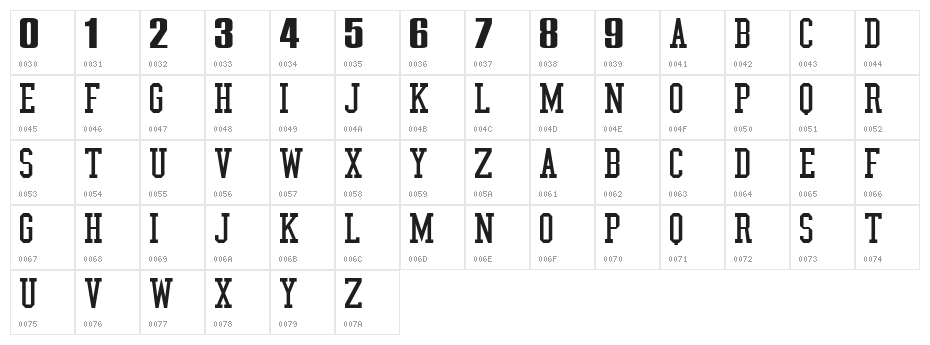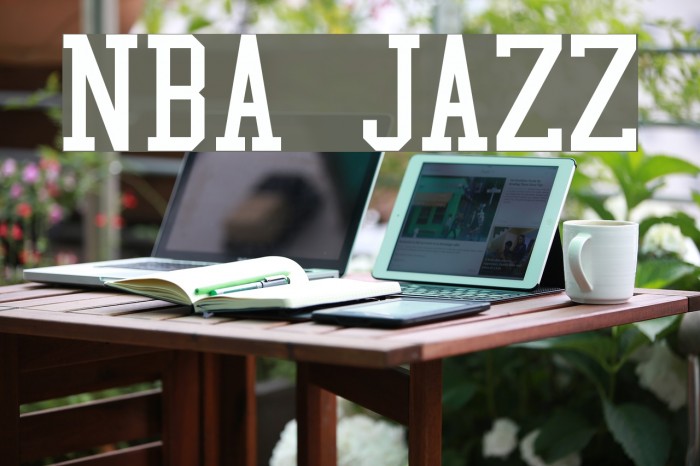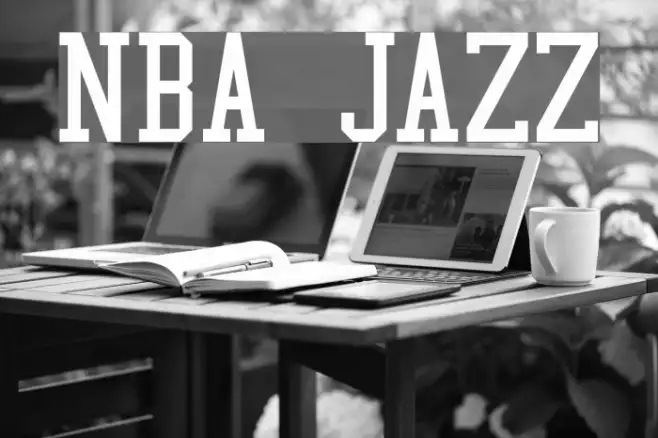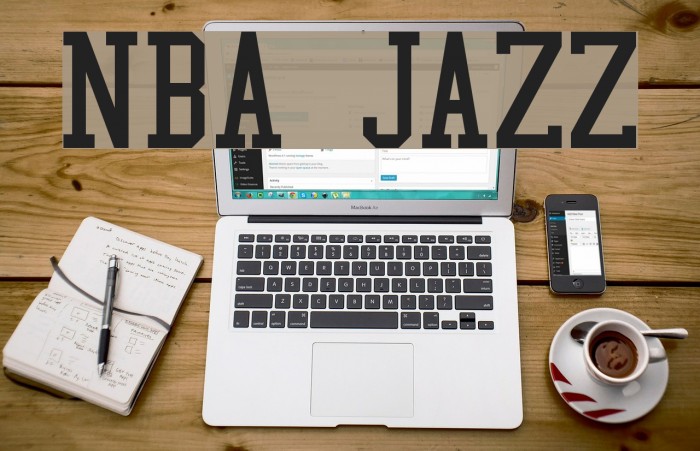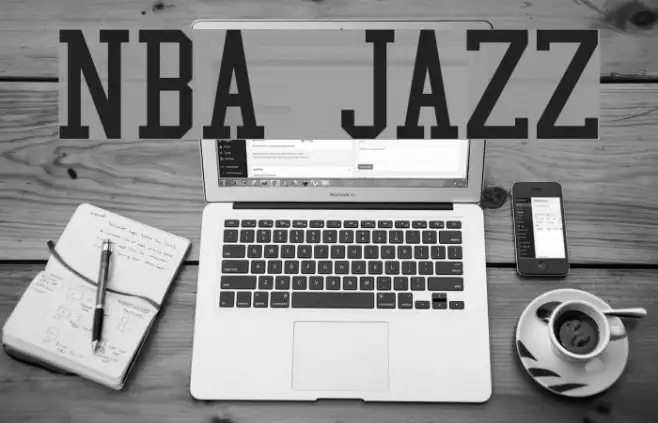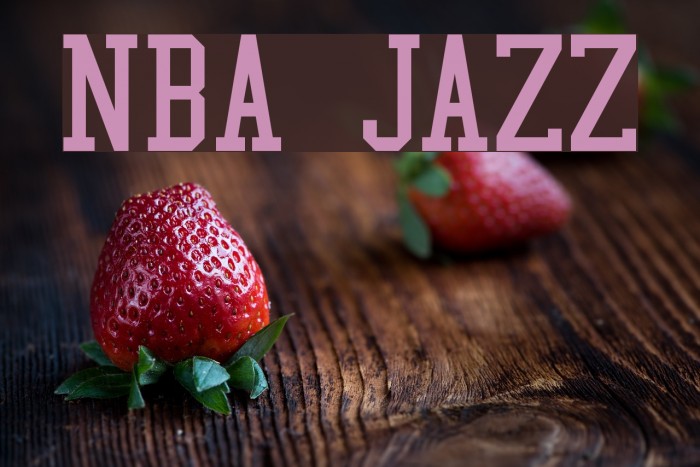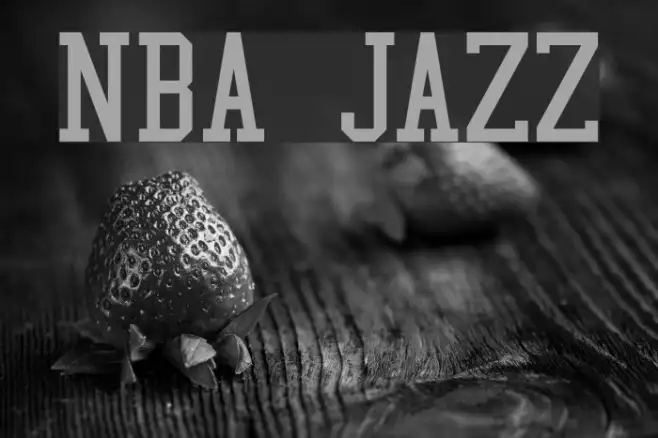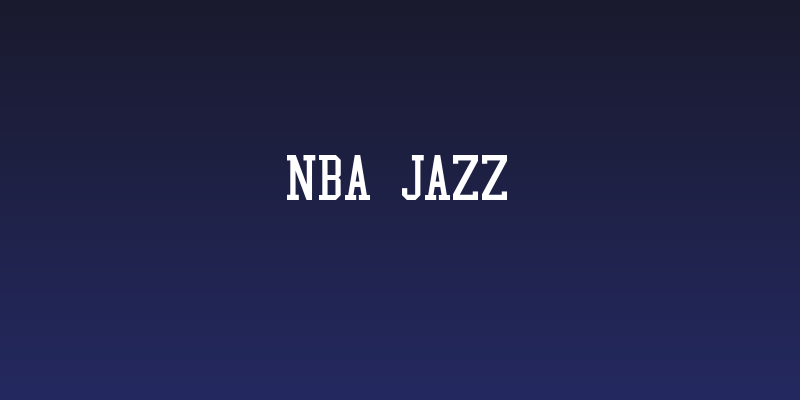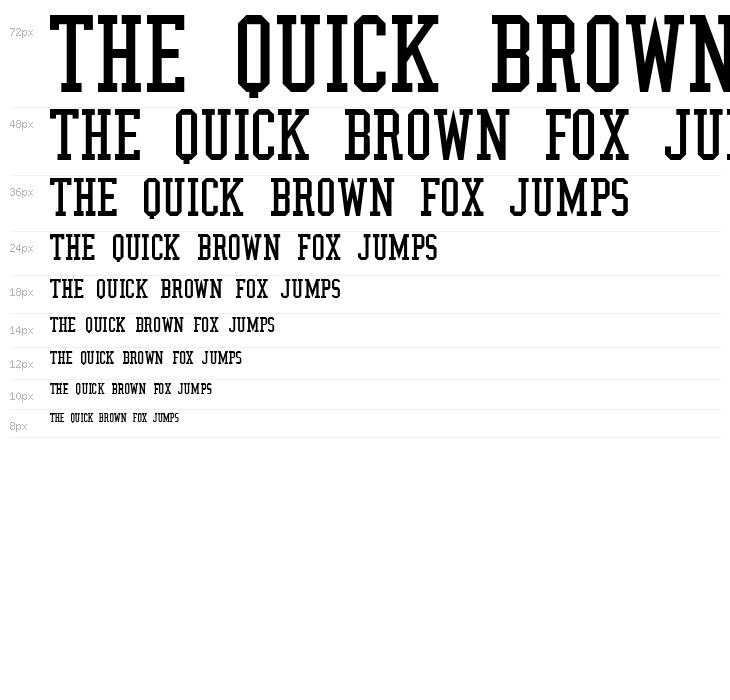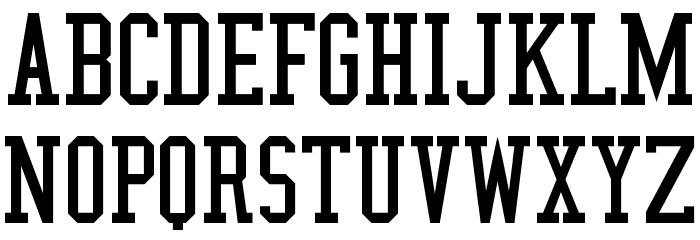
NBA Jazz Font
NBA Jazz Description
This font features a bold, athletic style with strong, block-like characters. The uppercase letters are tall and narrow, with a slight serif that adds a touch of classic elegance. The numbers are equally bold and impactful, making them ideal for sports-related designs. The overall appearance is reminiscent of traditional sports jerseys, with a modern twist. The font's clean lines and structured form make it highly legible, even from a distance, which is perfect for signage and branding. Its robust and confident style conveys strength and determination.
| Use Case | Headlines, Logos, Signage |
| Proposed Projects | Perfect for sports team branding, athletic event posters, merchandise, and signage. |